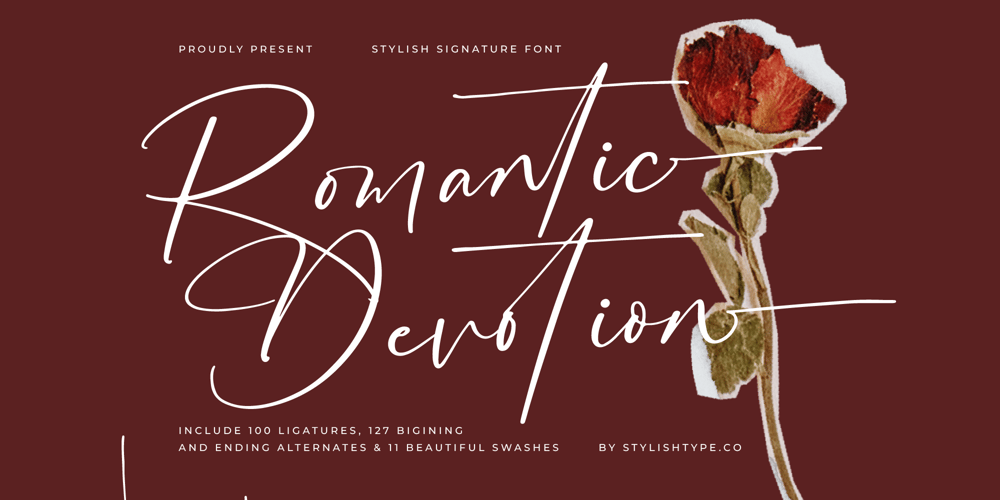
Romantic Devotion
Romantic Devotion font
Romantic Devotion Font Family was designed by Heru Utama Putra and published by Stylishtype Studio. Romantic Devotion contains 2 styles and family package options. Romantic Devotion – Stylish Signature Font , from Stylishtype , Suitable for any projects such as: logos, branding projects, homeware designs, product packaging, mugs, quotes, posters, shopping bags, t-shirts, book covers, name card, invitation cards, greeting cards, label, photography, watermark, special events, and all your other luxury and beautiful projects that need a Luxury Script taste.